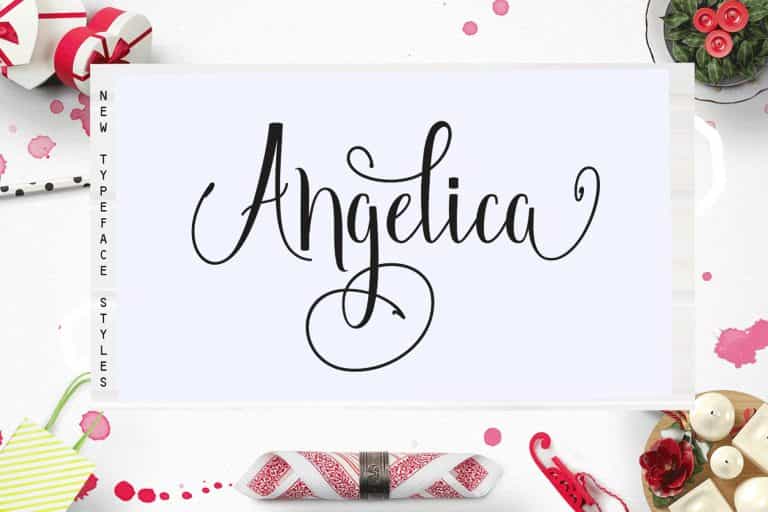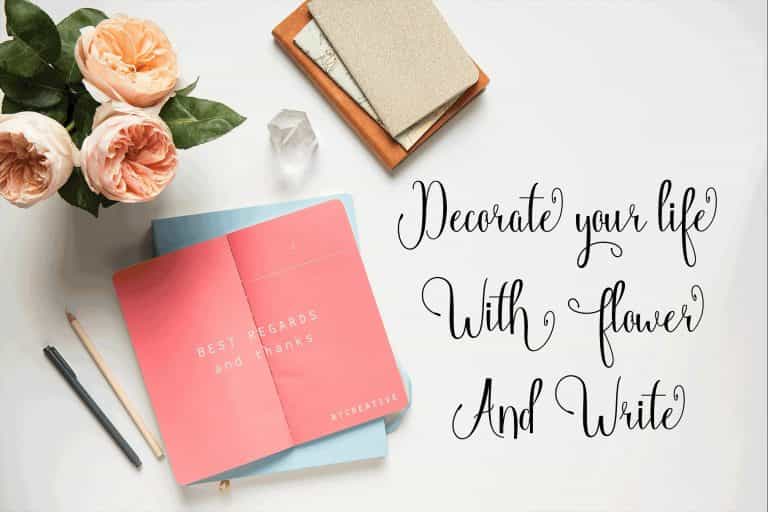
Discover Angelica Script Font, part of the Calligraphy Handwritten collection—a versatile and unique font perfect for adding a personal touch to your projects. Download it for free and enjoy crafting designs with style, from invitations to social media posts. This font is available exclusively for personal use, giving you the freedom to create without limits. Unlock your creativity with Angelica Script Font today!
Introducing Angelica Font! Angelica, a work that is entirely handwritten and has natural qualities. It is the best choice for invitations, signatures, blogs, social media, business cards and product brands. Angelica is a simple font with Stylistic standards, and it has also some Stylistic Alternatives. it comprises both the uppercase and lowercase letters, numerals as well as the punctuation.